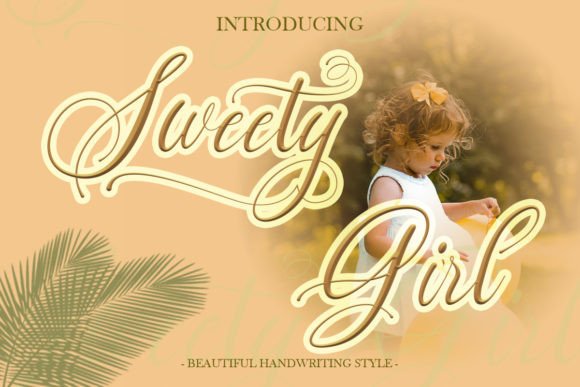
About Sweety Girl Font
Sweety Girl introduces itself as a delicate and fashionable script font, tailored for a variety of branding projects. Whether you’re working on logos, t-shirt printing, creative products, or more, Sweety Girl adds a touch of elegance to your design endeavors.
The delicacy of Sweety Girl’s script style makes it suitable for projects that require a refined and sophisticated aesthetic. Whether used in digital or print media, this font effortlessly elevates the visual appeal of your content, providing a stylish and feminine touch.
An exceptional feature of Sweety Girl is its PUA encoding, offering easy access to a diverse range of glyphs and swashes. This encoding enhances the font’s versatility, allowing designers to personalize and customize their creations with convenience. Whether you want to add decorative elements or create a more intricate design, Sweety Girl’s PUA encoding ensures a seamless and enjoyable design experience.
In conclusion, Sweety Girl goes beyond being just a font; it’s a design asset that combines delicacy and fashion. With its fashionable script style and PUA encoding, Sweety Girl is poised to enhance your branding projects, ensuring they exude sophistication and femininity. Explore the possibilities and let Sweety Girl be the perfect choice for infusing your designs with a delicate yet stylish aesthetic.